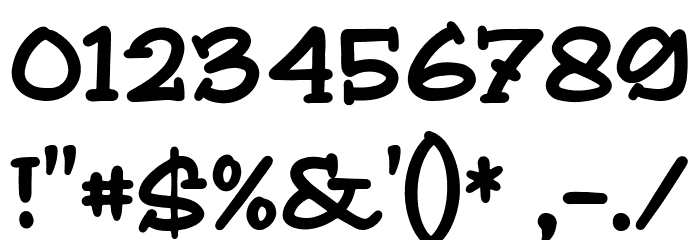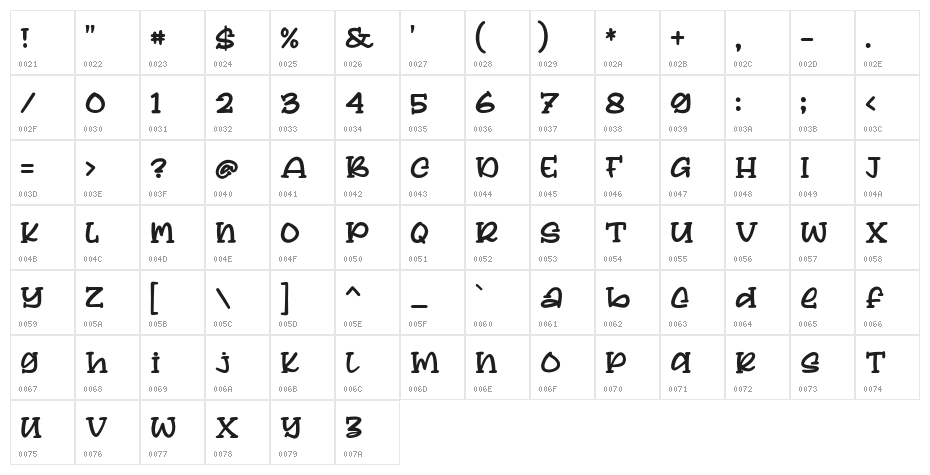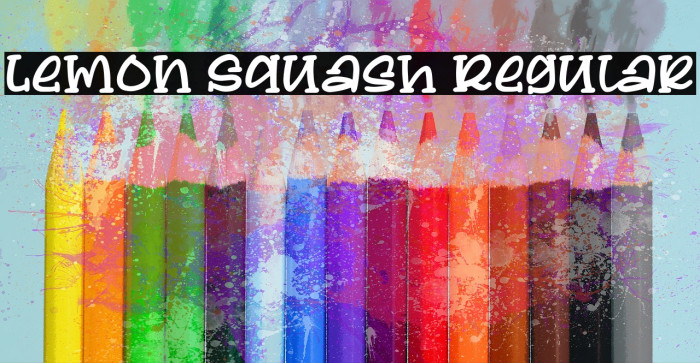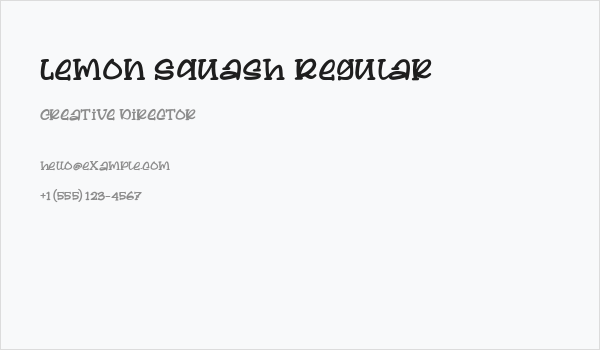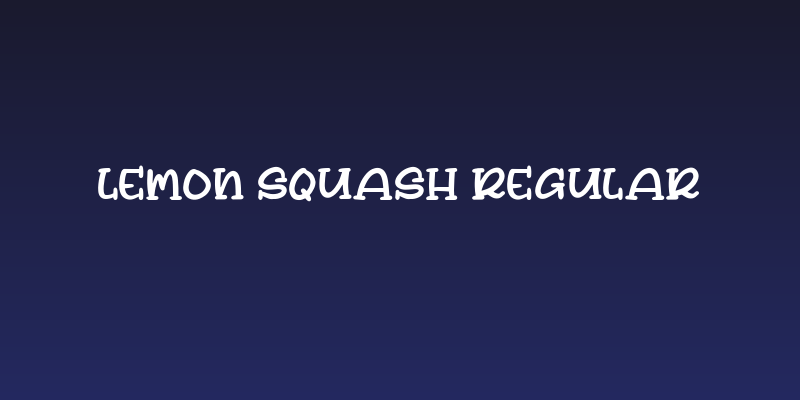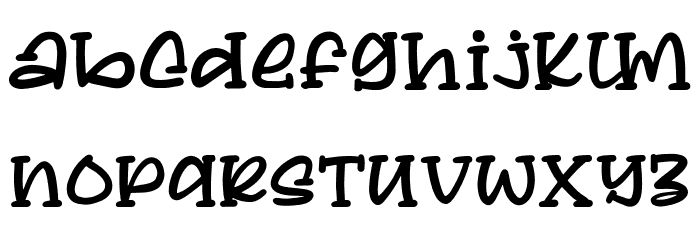
Lemon Squash Regular Font
Lemon Squash Regular Description
This playful and energetic font features a bold, rounded style with a handwritten feel. The characters are slightly irregular, giving it a whimsical and casual appearance. The strokes are thick and consistent, providing a strong visual impact. The uppercase and lowercase letters maintain a cohesive style, with the lowercase letters exhibiting a slight slant. The numerals are bold and easily readable, matching the overall style of the alphabet. Special characters are designed with the same playful touch, making them suitable for various creative applications.